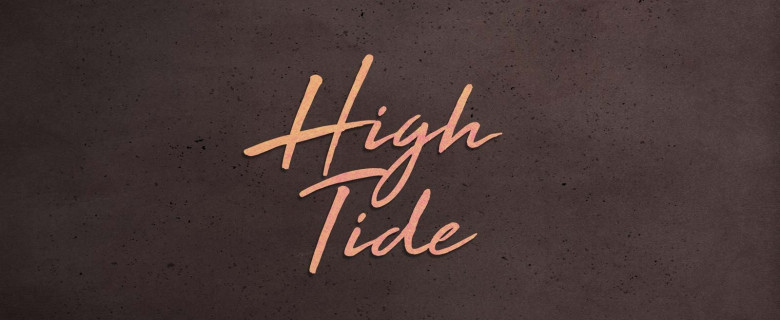
High Tide Font
Introducing High Tide Font. High Tide designed by blkbktyp. High Tide handwritten font in modern calligraphy style. This trendy elegant brush font will allow to create awesome branding materials, beautiful logos, cards, quotes, wedding invitations, overlays, presentations and any other interesting projects.